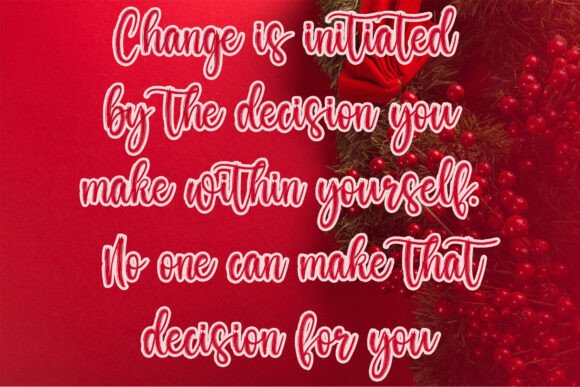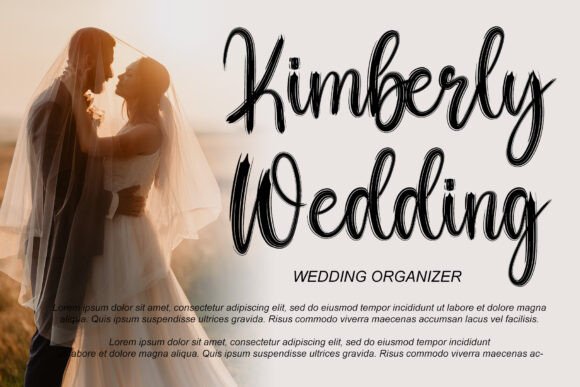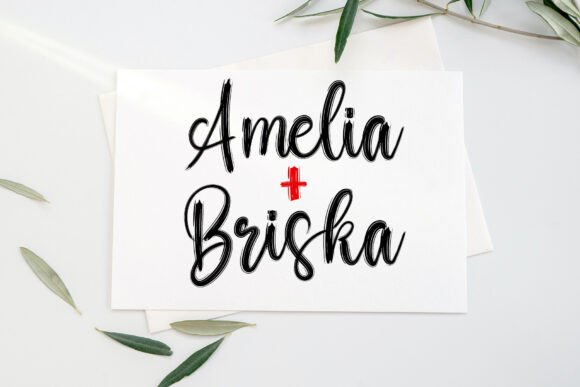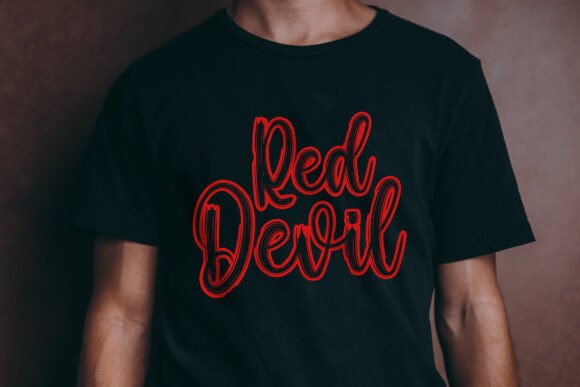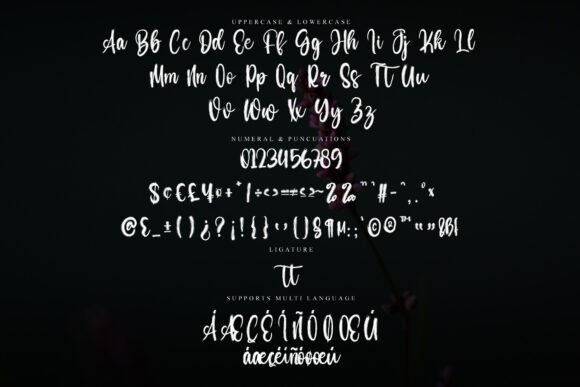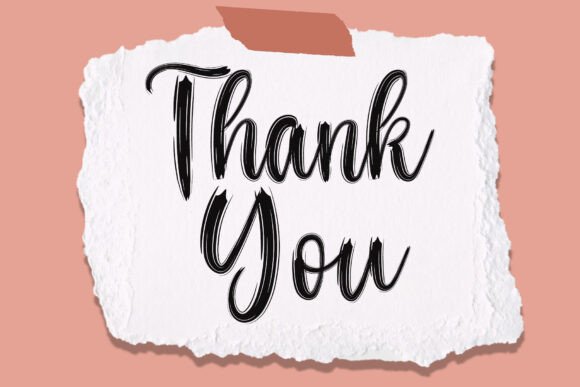
Introduction to Santa Signature Font
As you sit by the fireplace, surrounded by twinkling lights and the soft hum of holiday music, do you ever get that spark of creativity that comes with the season? The urge to create something magical, something that captures the essence of Christmas? For designers, this spark can be a valuable source of inspiration, and the right tools can make all the difference. That’s where the Santa Signature Font comes in – a festive and playful typeface that’s perfect for adding a touch of holiday magic to your Christmas cards, decorations, and more.
With its enchanting swashes and high-quality design, the Santa Signature Font is a valuable resource for any creative project. Whether you’re looking to create a festive greeting card, design a holiday-themed website, or simply add some holiday cheer to your social media posts, this font is sure to bring a smile to your face and a touch of whimsy to your design.
Santa Signature Font
- Unique, hand-drawn design inspired by the spirit of Christmas, perfect for creative projects and holiday-themed designs.
- High-quality font with transparent background, ideal for use on images, logos, and other design elements.
- Includes 100+ glyphs, including letters, numbers, and special characters, making it a versatile design resource.
- Perfect for use in logos, posters, invitations, and other holiday-themed designs, adding a touch of festive charm and personality.
Honest Review: Santa Signature Font
I recently stumbled upon the Santa Signature Font while searching for a unique design resource for a creative project. I must say, I was impressed by the font’s high quality and versatility.
Here are some things that work well with this font: ✨
- Unique and festive design perfect for holiday-themed projects
- High quality, clear and crisp typography
- Can be easily customized to fit different design styles
However, I did encounter a few limitations: ⚠️
- The transparent background option is not always seamless, which can be a problem for designers who require precise control over their designs
Overall, I’m quite pleased with the Santa Signature Font. It’s a great design resource for designers who want to add a touch of holiday cheer to their projects. Just be aware of the limitations and take necessary precautions to ensure a seamless design experience.
Tips for Getting the Most Out of Santa Signature Font
Experiment with different font sizes, colors, and styles to create unique and eye-catching designs. Use the font in combination with other design elements such as images, graphics, and shapes to add depth and visual interest to your project. Consider using the font in a free download template or design resource to save time and effort.
The Santa Signature Font is ideal for various creative projects such as holiday cards, gift tags, and invitations. You can also use the font in business projects such as presentations, reports, and marketing materials. The font’s high quality and transparent background make it a versatile design resource for both personal and professional use.